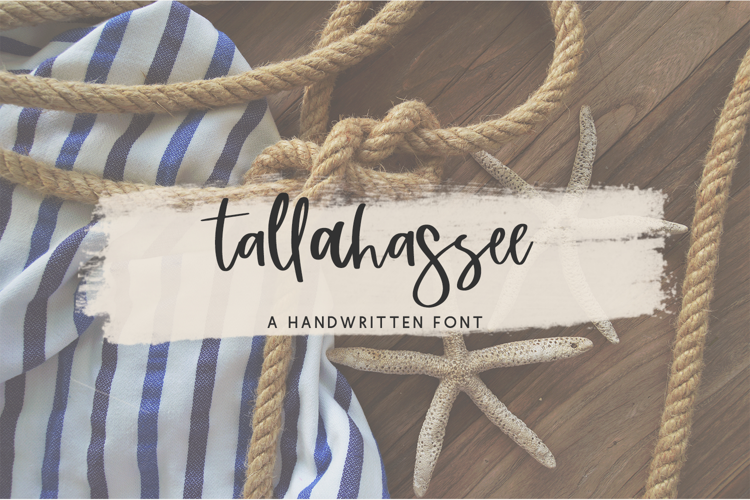
Tallahassee Script
Meet Tallahassee Script, a handlettered modern calligraphy script with a lot of personality. Tallahassee features a selection of alternate characters & ligatures to customize your text, as well as a bouncy signature-style baseline.
Tallahassee includes:
- 26 alternate lowercase characters
- 14 ligatures - bb, cc, dd, ee, ff, gg, ll, mm, nn, oo, pp, rr, ss, tt